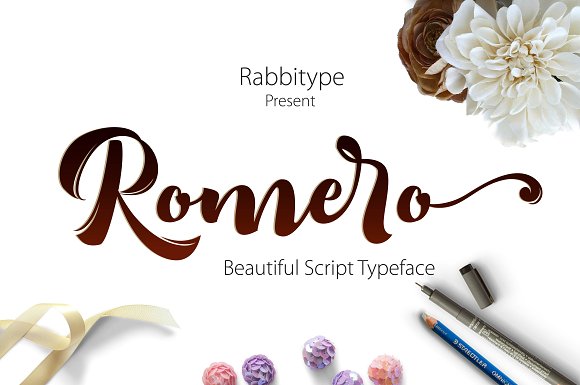
Introducing a font family that captures the essence of timeless beauty, Romero. Crafted with meticulous attention to detail by Olexstudio, Romero flawlessly blends the allure of classic calligraphy with a touch of contemporary charm. Get ready to unveil a world of endless creative possibilities.
Romero: Where Elegance Meets Authenticity
Romero's exquisite hand-lettered strokes exude an air of authenticity, creating designs that feel personal, warm, and inviting. Each character dances across the page, carrying with it a story, a sentiment, and a touch of heartfelt emotion. Whether you're crafting wedding invitations, branding materials, social media posts, or any other project that demands a touch of elegance, Romero is your perfect companion.
A Versatile Canvas for Your Imagination
Romero's versatility knows no bounds. With its extensive character set, overflowing with alternates, swashes, ligatures, and ornaments, Romero adapts seamlessly to a myriad of design styles. Whether you're drawn to the timeless charm of vintage aesthetics, the playful spirit of modern designs, or the allure of edgy, contemporary styles, Romero effortlessly adapts to your vision, adding a touch of sophistication and individuality.
Expressive and Emotionally Resonant
Romero possesses an innate ability to evoke emotions and establish connections. Its flowing lines mimic the natural rhythm of human handwriting, imbuing your designs with a sense of warmth and intimacy. Harness the power of Romero to craft designs that resonate with your audience, leaving a lasting impression that lingers long after they've encountered your work.
Unlock Your Creative Potential
With Romero at your fingertips, unleash your creative potential and embark on a journey of boundless imagination. This beautiful script font opens up a world of creative possibilities, inviting you to explore new horizons and express yourself in ways you never thought possible. Transform your designs into masterpieces, leaving your audience captivated and inspired.